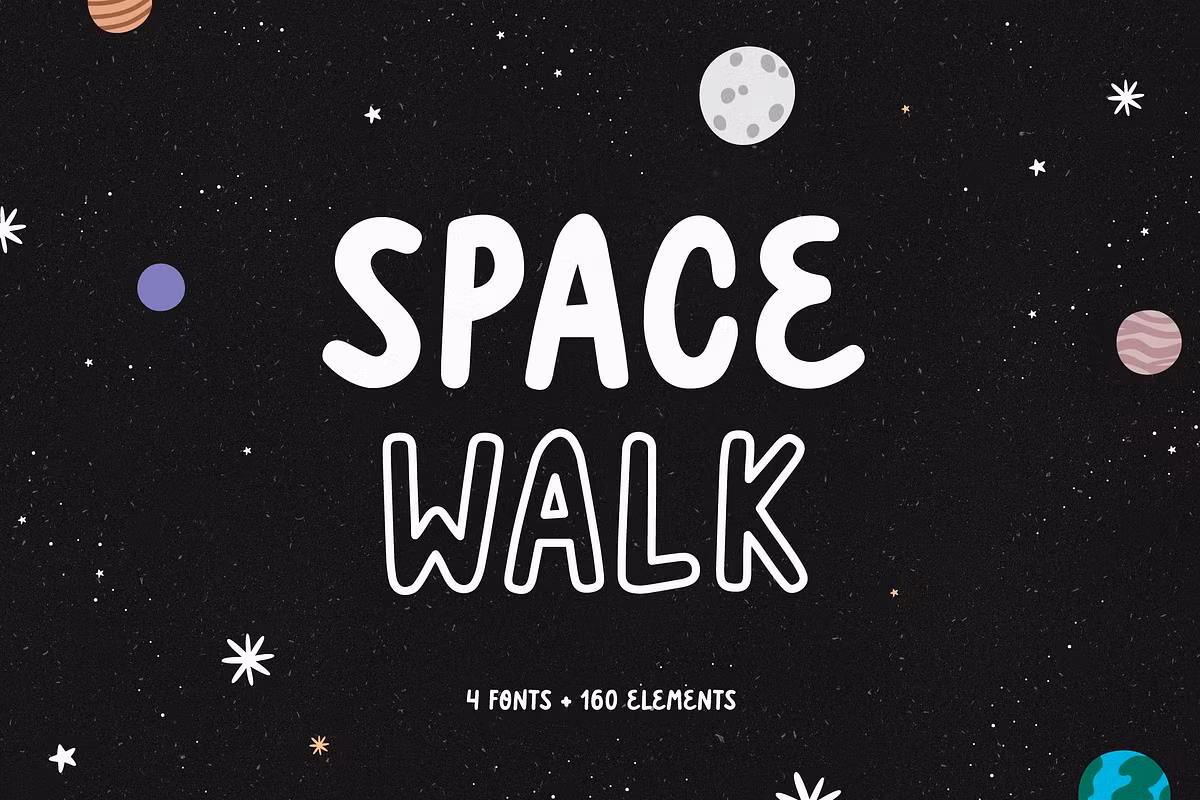
Space Walk Font Free Download is a playful and quirky typeface that adds a touch of fun to any creative project. With its bubbly curves and space-inspired style, this font is perfect for kids’ designs, games, comics, party invitations, and anything that needs a burst of personality.
Whether you're designing for a fun brand or crafting colorful social media graphics, Space Walk brings an energetic and imaginative feel. Its charming style ensures your message stands out in a delightful way. Space Walk Font Free Download gives you a chance to explore its cheerful vibe for free in personal projects before deciding on a commercial license.
Add some cosmic creativity to your next design with Space Walk — a font that's as fun and lighthearted as its name suggests.